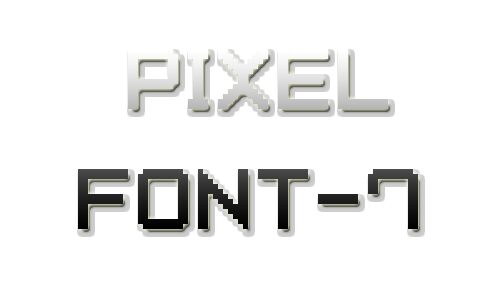
Pixel Font-7 by Style-7 is a free retro pixel font with tall, upright letters, broad proportions, and the blunt geometry of an early computer display. Open interiors and abrupt notches recur throughout the squared silhouettes.
The retro-computing character makes it especially apt for arcade game title cards, electronic music posters, and digital graphics that borrow from early home-computer screens and chunky interface labels. It also suits merchandise for coding clubs and technology events, where the squared forms can become part of an interface-themed graphic for younger makers and longtime game enthusiasts drawn to vintage hardware and the culture around early gaming.
Pixel Font-7 by Style-7 is a free pixel font.